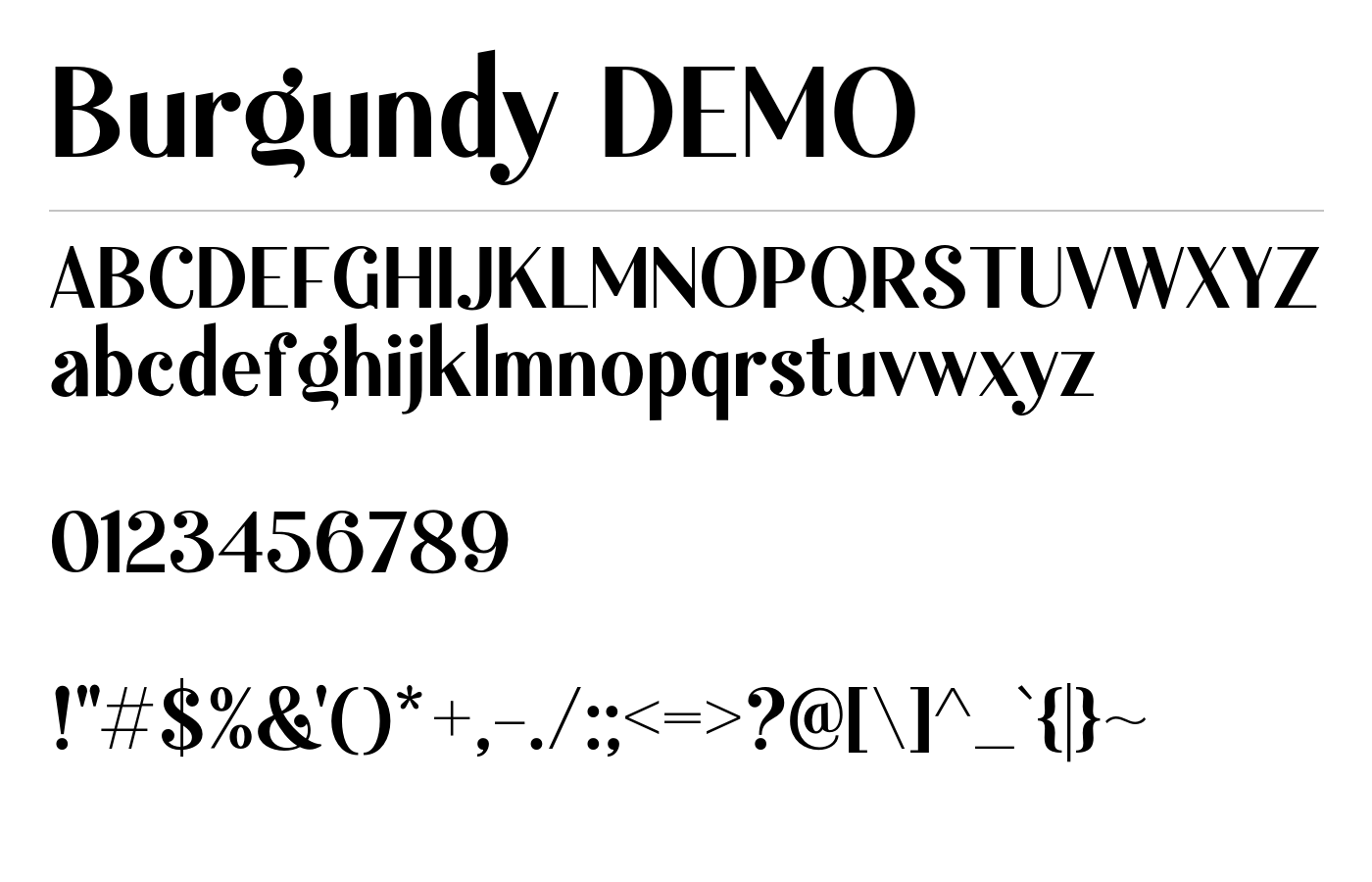
Burgundy DEMO is an elegant serif font featuring high contrast strokes and sharp, bracketed serifs that blend modern sophistication with a vintage charm. Its distinct letterforms, including stylish double-story characters and unique curl details, give it a refined yet playful personality, making it ideal for luxury branding, editorial headlines, and fashion packaging where a strong and graceful presence is needed. This font combines artistic flair with readability, perfect for making a memorable, stylish impression.
Burgundy DEMO Font
About Burgundy DEMO Font